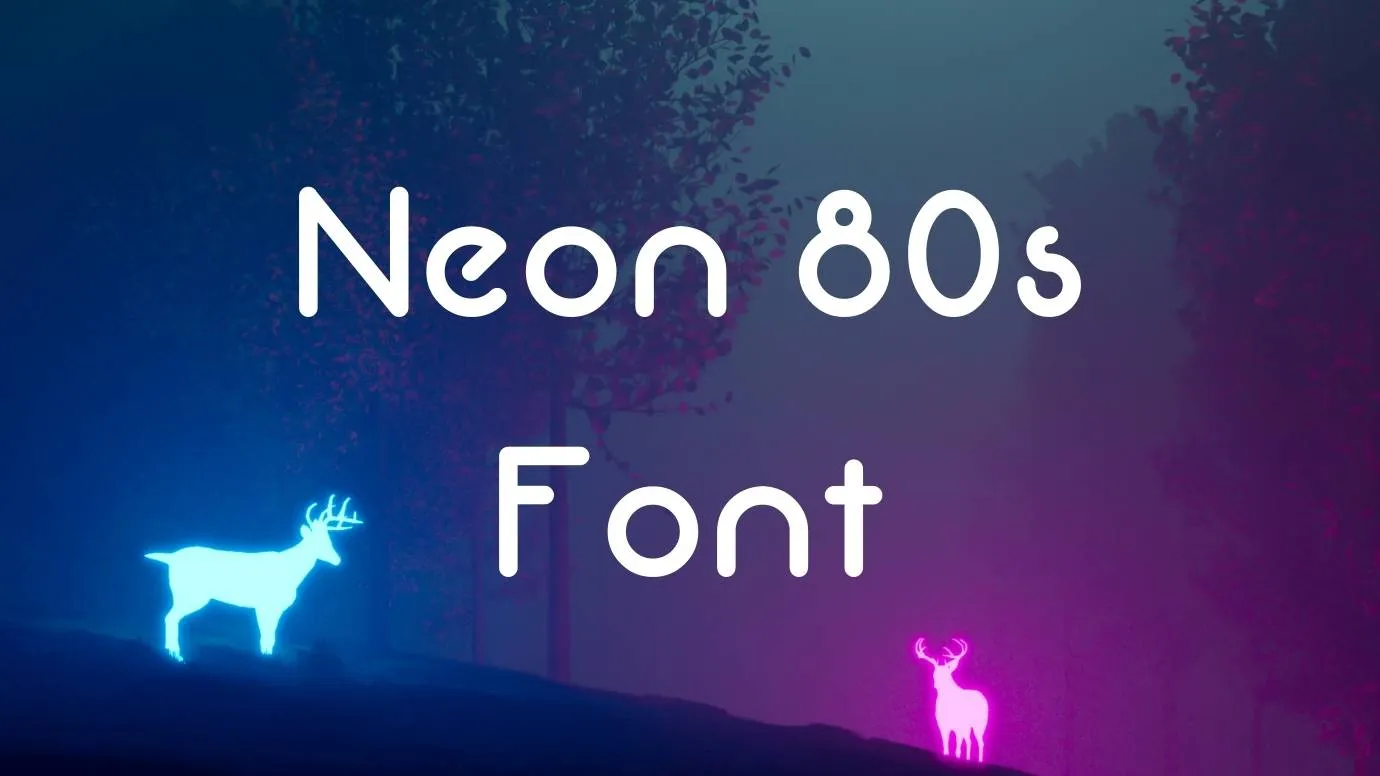
Neon 80s Font Family is a modern sans serif font with bold rounded characters. Essqué Productions is the principal designer of this typeface. This font has more than 70 characters including numbers, uppercase letters, and special characters.
Neon 80s Font